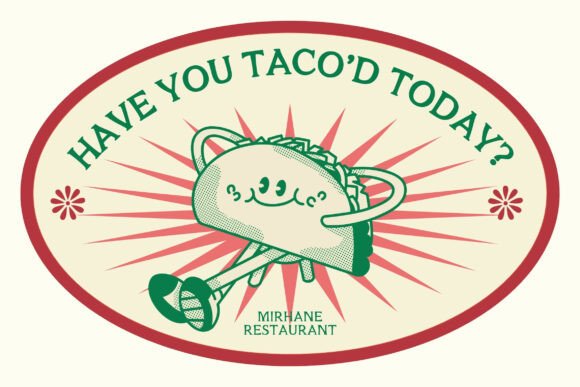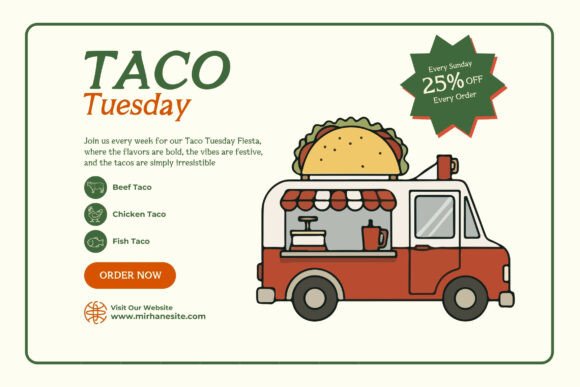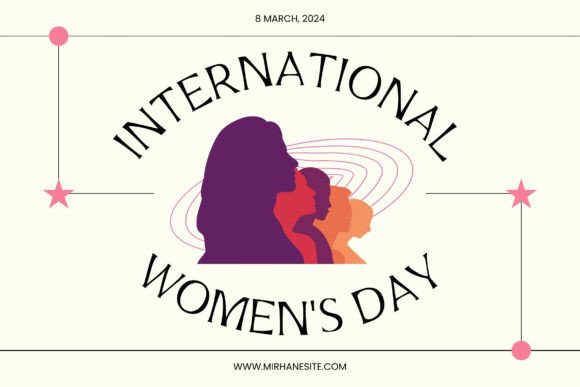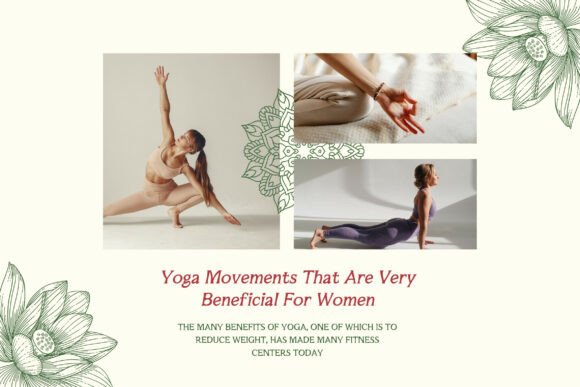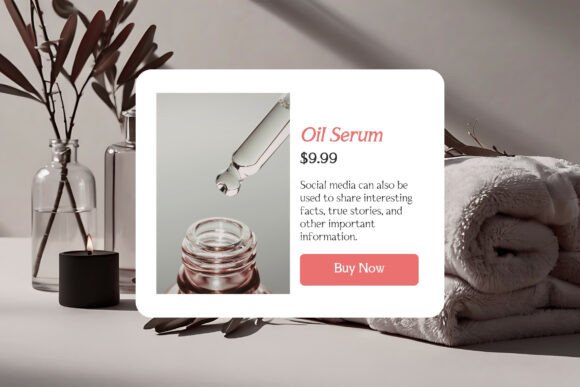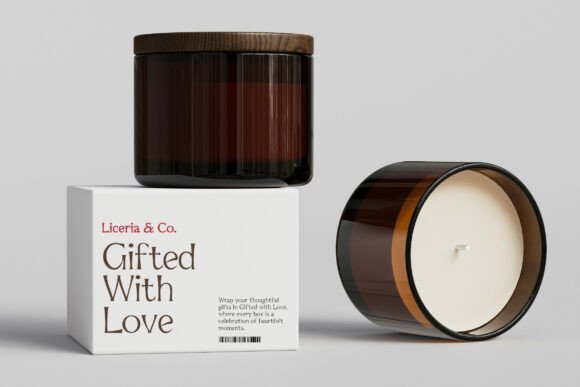
Introduction to Mirhane Font
Have you ever stared at a blank page, waiting for inspiration to strike, and suddenly, the perfect font pops into your head? For designers, this moment is pure magic. And when it comes to creating a stunning design, the right font can make all the difference. That’s where Mirhane Font comes in – a modern serif typeface that’s about to revolutionize your creative projects.
With its elegant curves, balanced proportions, and refined serif details, Mirhane Font is the perfect design resource for any creative endeavor. Whether you’re working on a high-quality branding project, crafting a beautiful wedding invitation, or designing a sleek website, Mirhane Font’s versatility and high-quality design will elevate your work to the next level. And the best part? It’s now available for free download, making it an invaluable addition to your design arsenal.
Key Features of Mirhane Font
- High-quality, professional font design ideal for creative projects, including logos, branding materials, and digital art.
- Unique, modern design with a transparent background, allowing for easy layering and customization in your creative project.
- Designed to be versatile, the Mirhane Font is suitable for a wide range of applications, from print materials to digital displays.
- Supports multiple languages, making it an excellent choice for international creative projects and design resources.
Honest Review: Mirhane Font
I recently had the chance to experiment with the Mirhane Font, and I must say, it’s a great addition to any designer’s toolkit. This free download offers a lot of versatility for a creative project.
- ✨ The Mirhane Font has a beautiful, elegant design that’s perfect for titles and headings. Its high quality is evident, making it a great design resource.
- ✨ Another great feature is the transparent background option, which allows for seamless integration into any design.
- ✨ The font also comes in a variety of styles and weights, giving designers a lot of flexibility for their projects.
However, there are a few limitations to consider. ⚠️ The font may not be suitable for body text, as it can be a bit too decorative and overwhelming. Additionally, some users may find the font a bit too ornate for their taste.
Overall, I’m impressed with the Mirhane Font. Its high quality, elegant design, and transparent background make it a valuable resource for designers. While it may not be perfect for every project, it’s definitely worth considering for your next creative endeavor.
The Mirhane Font is a versatile design resource that can be used in a variety of creative projects, including logos, branding, and marketing materials. Its transparent background makes it easy to use in layered designs and can be a great addition to any design project.